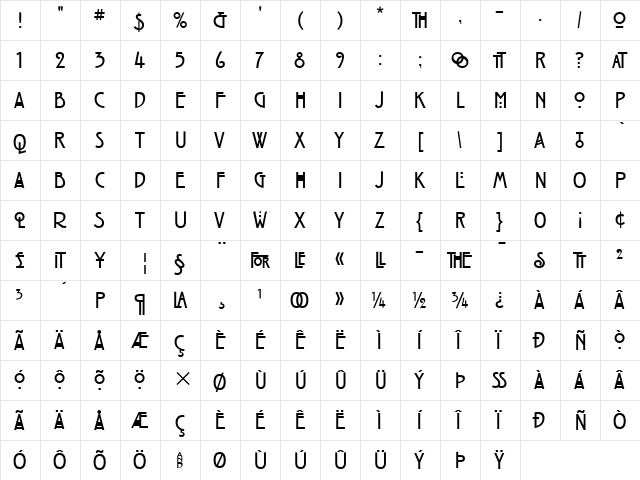
Rennie Mackintosh ITC Bold
| Foundry | as an unpublished work by Galapagos Design Group, Inc |
Design Context for Rennie Mackintosh ITC Typeface
Rennie Mackintosh ITC is a composed and adaptable typeface that performs quietly and consistently across a wide range of design contexts. Its bold stroke weight gives it real presence on the page.